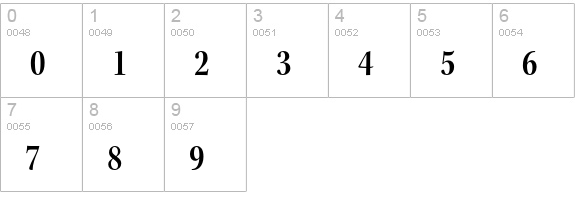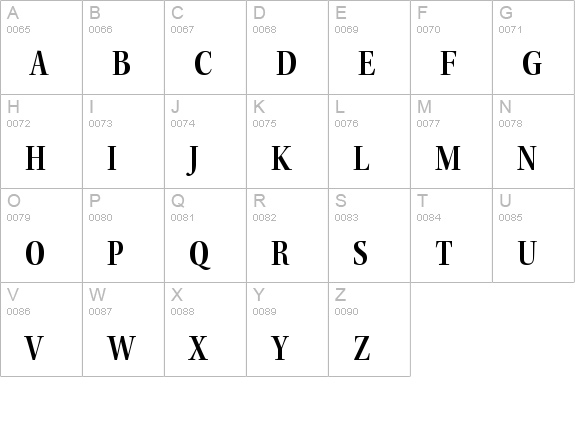
Kepler Std Semibold Condensed Subhead Font Details
Kepler Std Semibold Condensed Subhead is a sub-bold, structured, condensed-width variant in the Kepler typeface family \xE2\x80\x94 well suited to sub-headlines and emphasised passages.
Kepler Std Semibold Condensed Subhead font is a versatile and elegant typeface that exudes sophistication and strength. With its condensed design, it is perfect for adding a touch of modernity and professionalism to any project. The boldness of the Semibold weight creates a strong visual impact, making it ideal for subheadings and titles that need to grab attention. Its condensed proportions allow for efficient use of space without sacrificing legibility, making it a great choice for designs that require more content in a limited area. Kepler Std Semibold Condensed Subhead font features clean and crisp letterforms that are easy on the eyes, ensuring a pleasant reading experience. Each character is meticulously crafted, with balanced proportions and subtle details that add to its overall appeal. This font is not only visually appealing but also highly versatile. Its timeless design makes it suitable for a wide range of applications, including editorial design, branding, packaging, and advertising. Whether you're working on a magazine layout, a corporate identity, or a digital campaign, Kepler Std Semibold Condensed Subhead font is sure to elevate your design to the next level. And the best part? Kepler Std Semibold Condensed Subhead font is available for free download at FontsMarket.com. This means that you can enjoy the beauty and functionality of this font without any cost. Simply visit FontsMarket.com and add this font to your collection to enhance your design projects with its powerful presence. In conclusion, Kepler Std Semibold Condensed Subhead font is a striking and versatile typeface that combines elegance with functionality. Its condensed design and bold weight make it perfect for subheadings and titles, while its clean letterforms ensure legibility and readability. And with its availability for free download at FontsMarket.com, there's no reason not to add this exceptional font to your design arsenal.